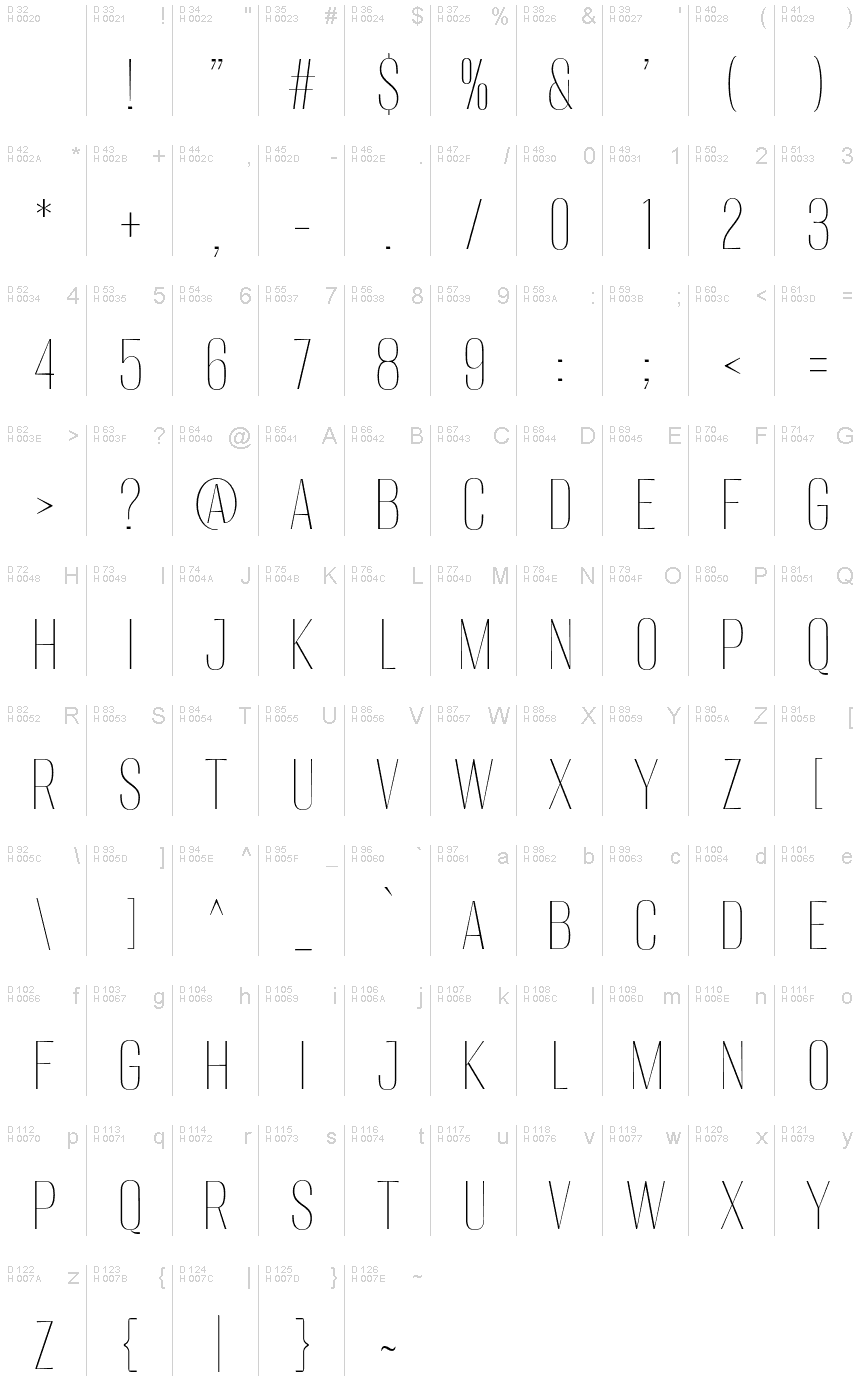
Migha-ThinCondensed
Migha Thin Condensed is the perfect font for minimalist designs that require a clean and sleek look. Designed by Seniors Studio, this ultra-light sans serif typeface features an extra-condensed width that allows for efficient use of space. Its thin strokes make it ideal for headlines, logos, and titles that need to convey a sense of elegance and sophistication. Migha Thin Condensed is suitable for a wide range of projects, including fashion magazines, high-end branding, and tech websites. With its unique personality and excellent legibility, this font will add a touch of modernity to any design project.